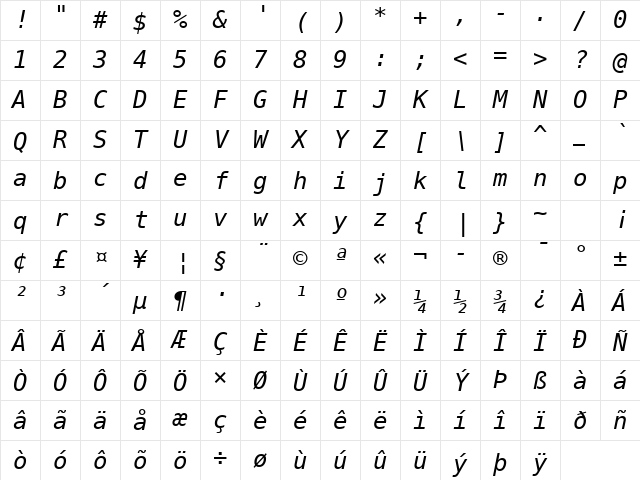
BitstreamVeraSansMono NF Oblique
Foundry: Bitstream Inc.
Complete BitstreamVeraSansMono NF Oblique glyph index. Displaying only characters natively supported by BitstreamVeraSansMono NF Oblique font.
Design Context for BitstreamVeraSansMono NF
BitstreamVeraSansMono NF uses fixed-width spacing throughout, giving it the structured, systematic character associated with coding environments and technical documentation. The slanted form adds forward momentum and visual energy.
Pro Tip: Use BitstreamVeraSansMono NF with slightly increased line-height for extended reading - fixed-width spacing can feel dense in longer passages without extra breathing room.
Who designed the BitstreamVeraSansMono NF Oblique font?